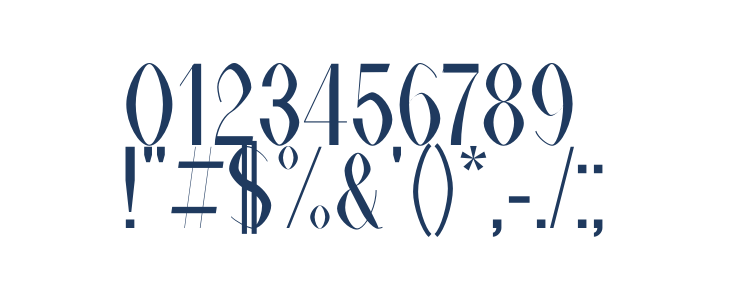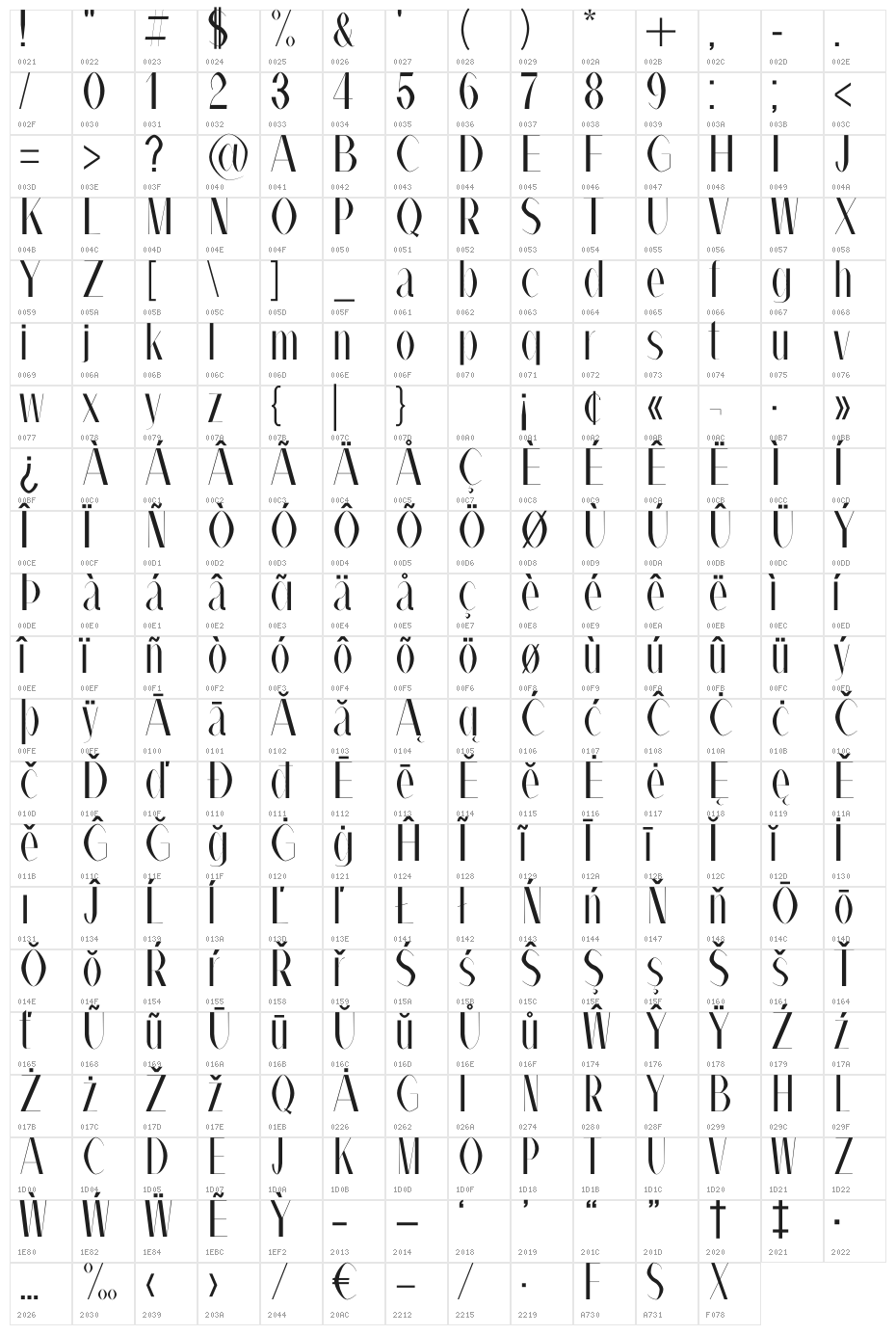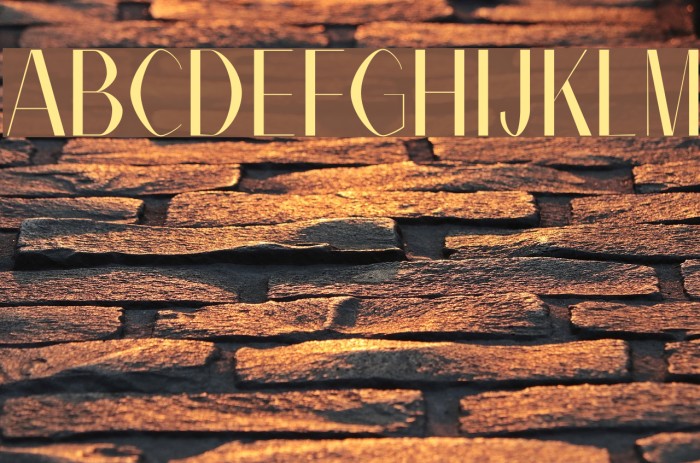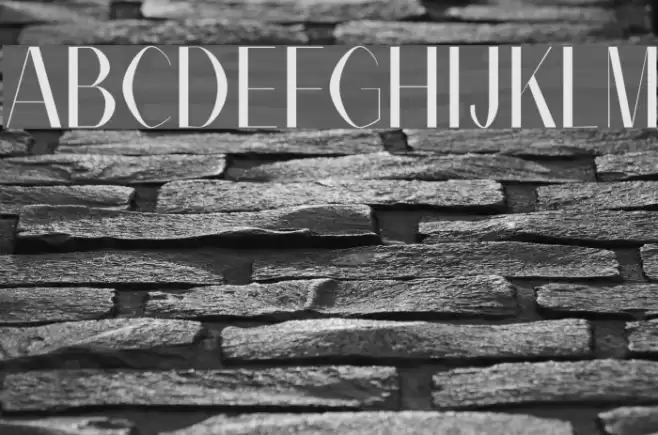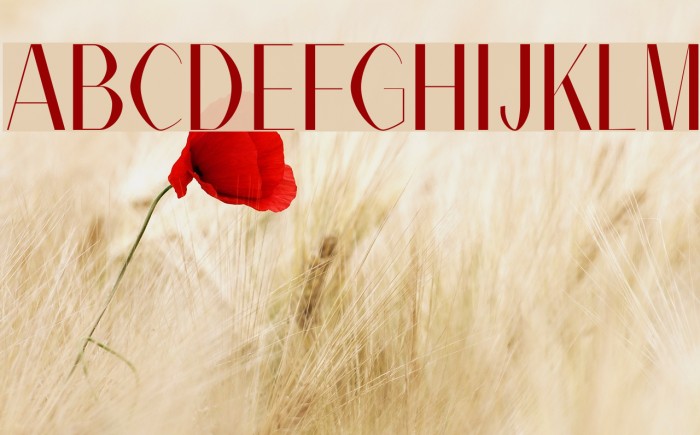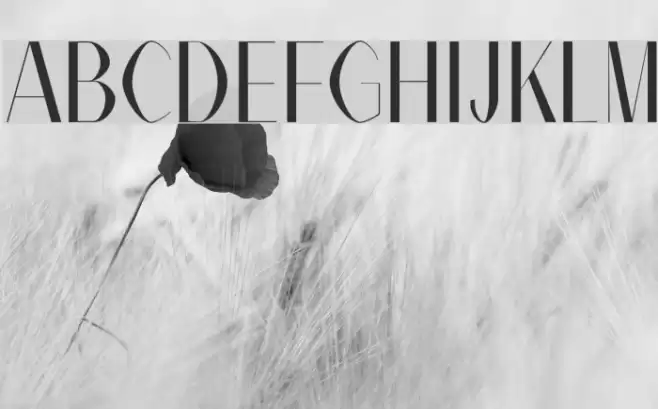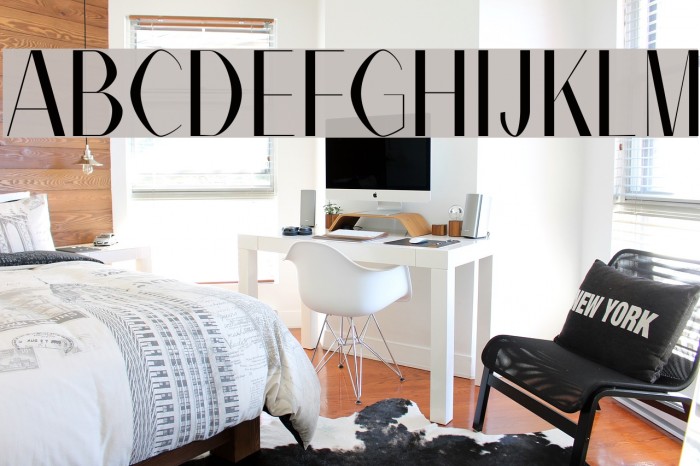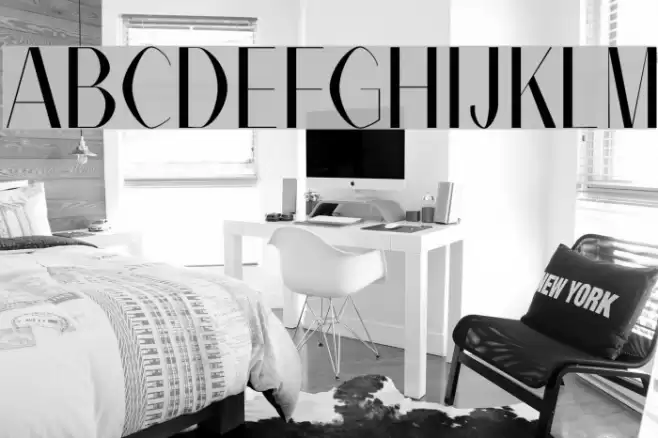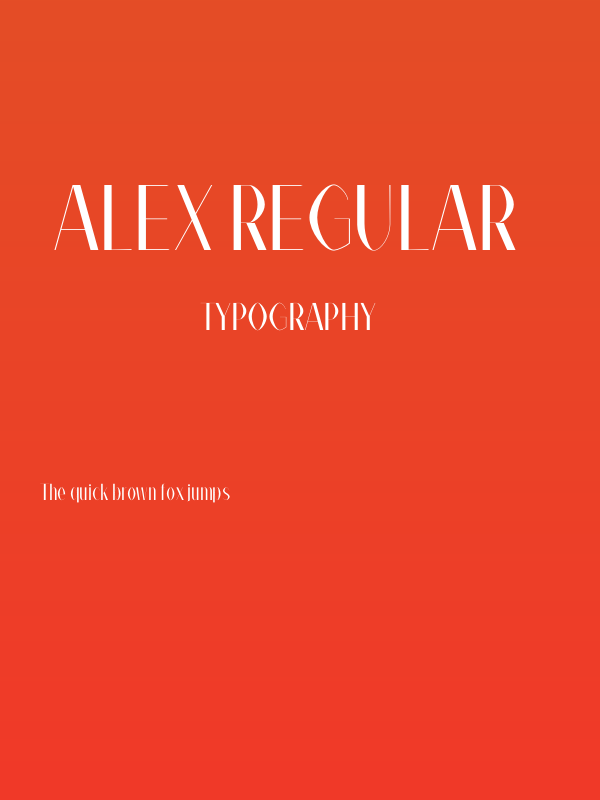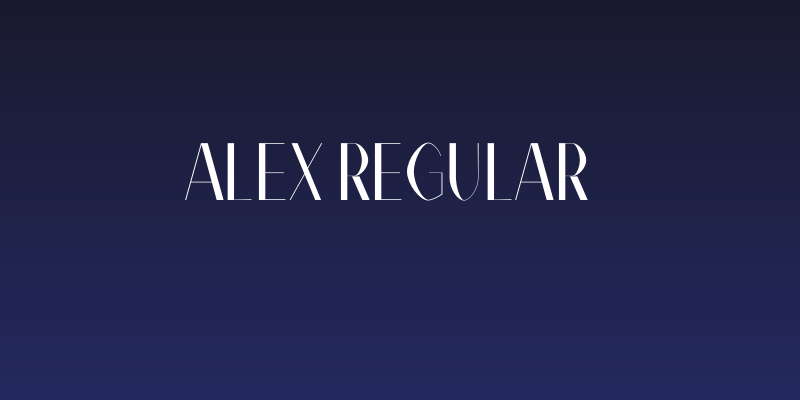
Alex Regular Font
Alex Regular Description
This font features a striking blend of elegance and modernity, characterized by its tall, slender letterforms and high contrast between thick and thin strokes. The uppercase letters exhibit a refined, elongated structure, while the lowercase letters maintain a consistent style, offering a seamless flow. The numerals are equally stylish, with a distinct flair that complements the overall aesthetic. Special characters are thoughtfully designed, maintaining the font's sophisticated appearance. This typeface is ideal for projects that require a touch of class and modernity.